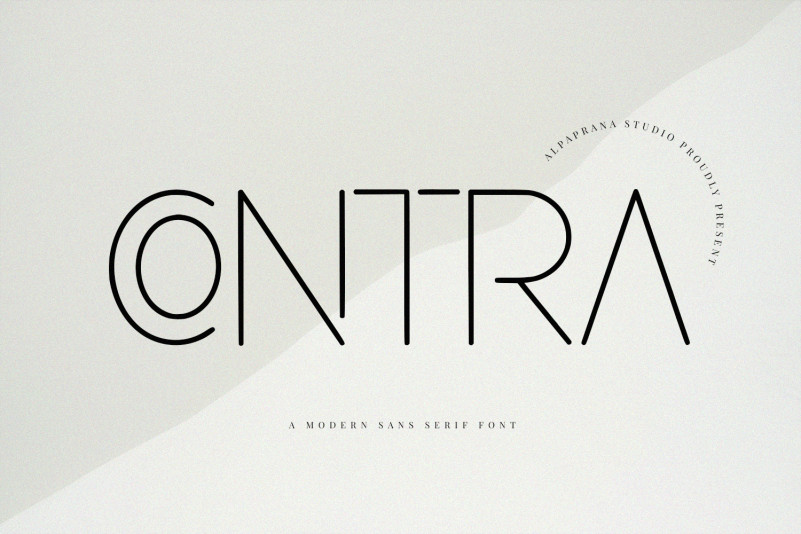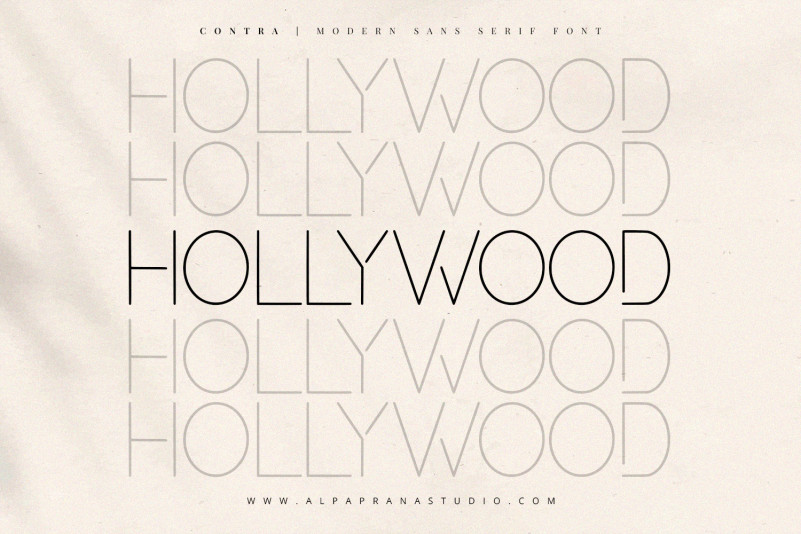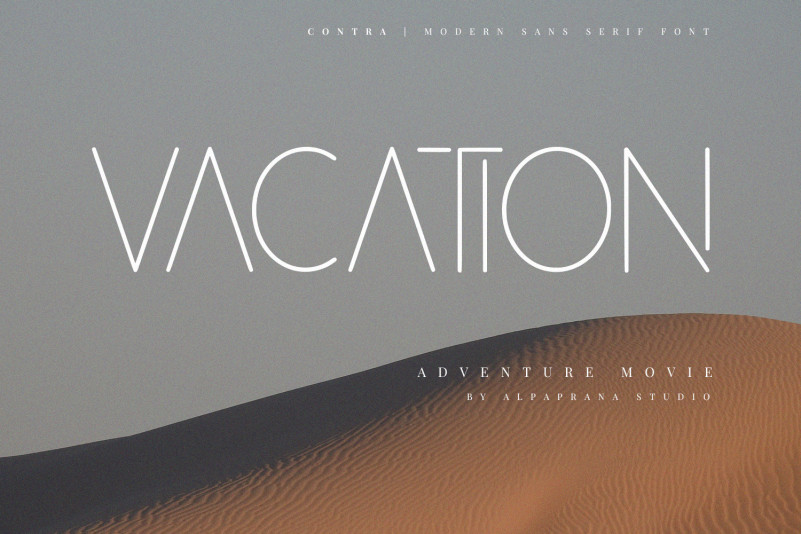
Contra Font
Contra Sans Serif Font is a modern sans serif font with natural and casual feels. It will be perfectly used for Branding, Logo Design, Lettering, Logotype, Clothing, Poster, magazine, packaging, posters, shopping bags, t-shirts, book covers, photography, special events and other design project.